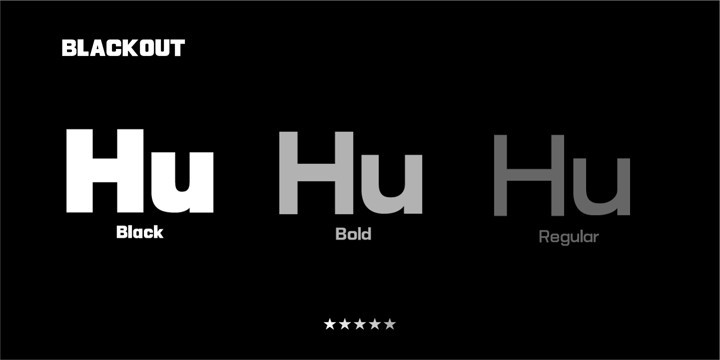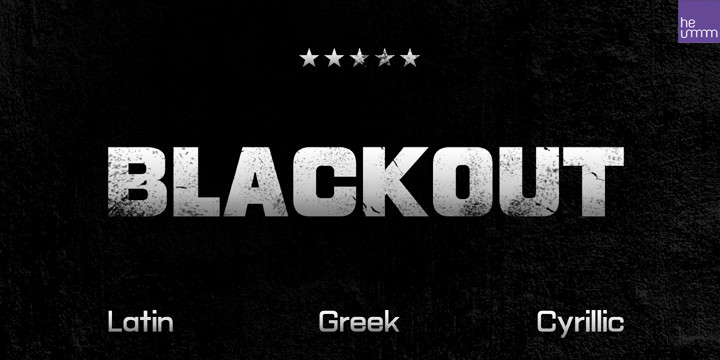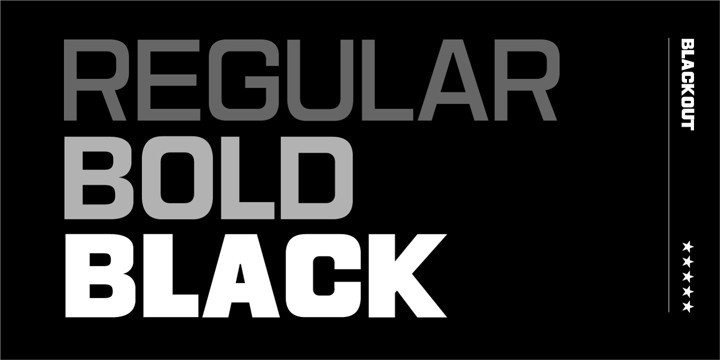
HU Blackout Font Family
HU Blackout Font FamilyHU Blackout is a typeface for titles that feels like letters are trapped in a square and has a constant and very narrow inner space. It is composed of three types of family typeface to increase usability.